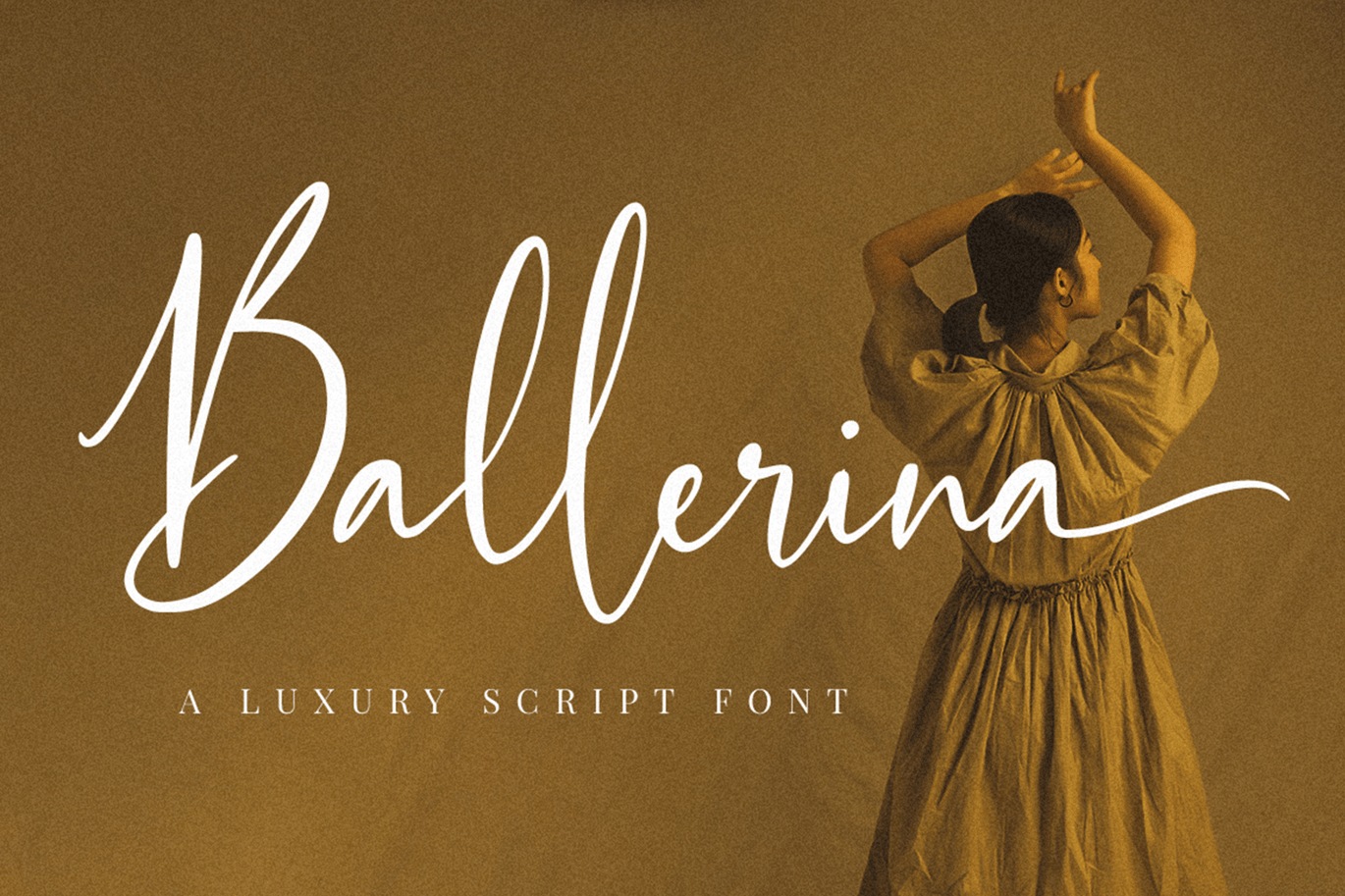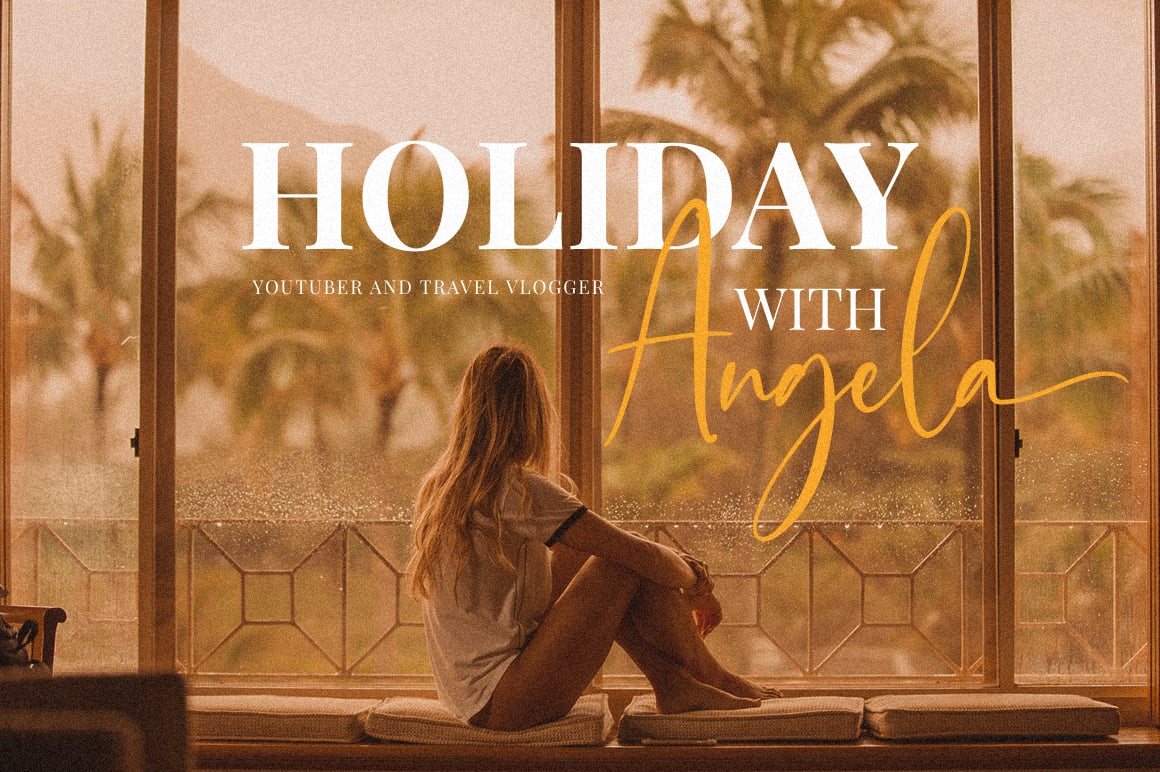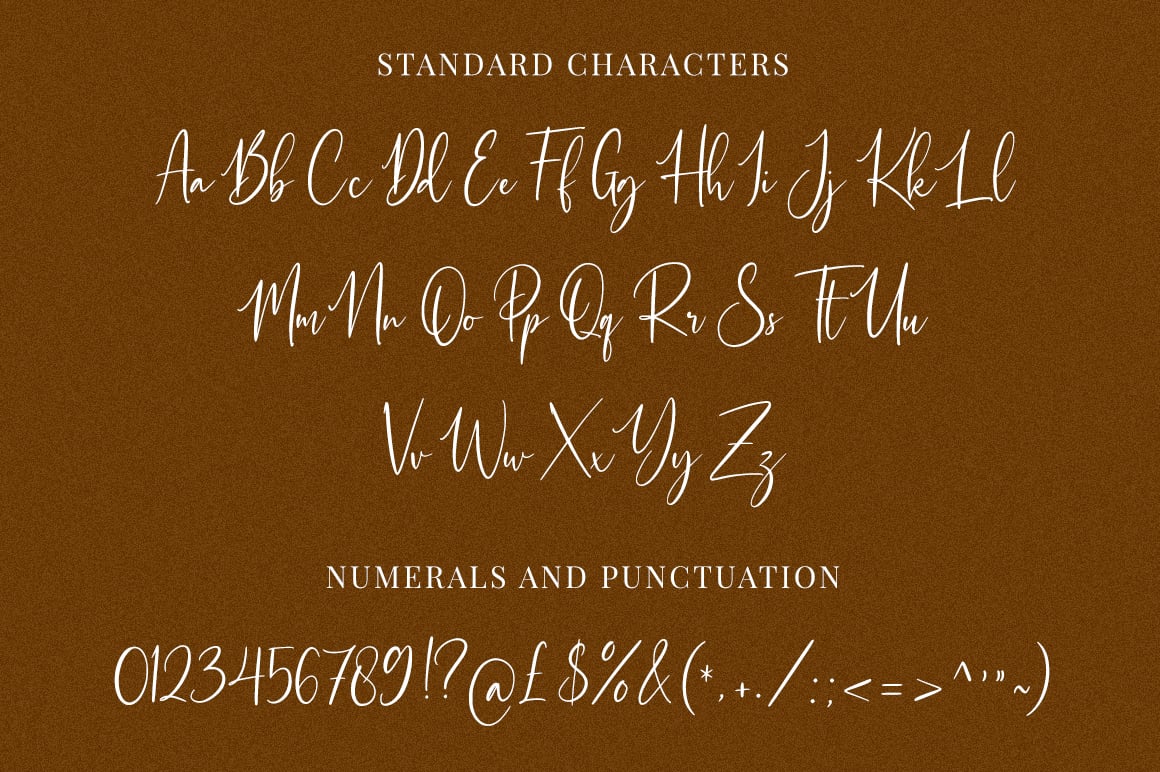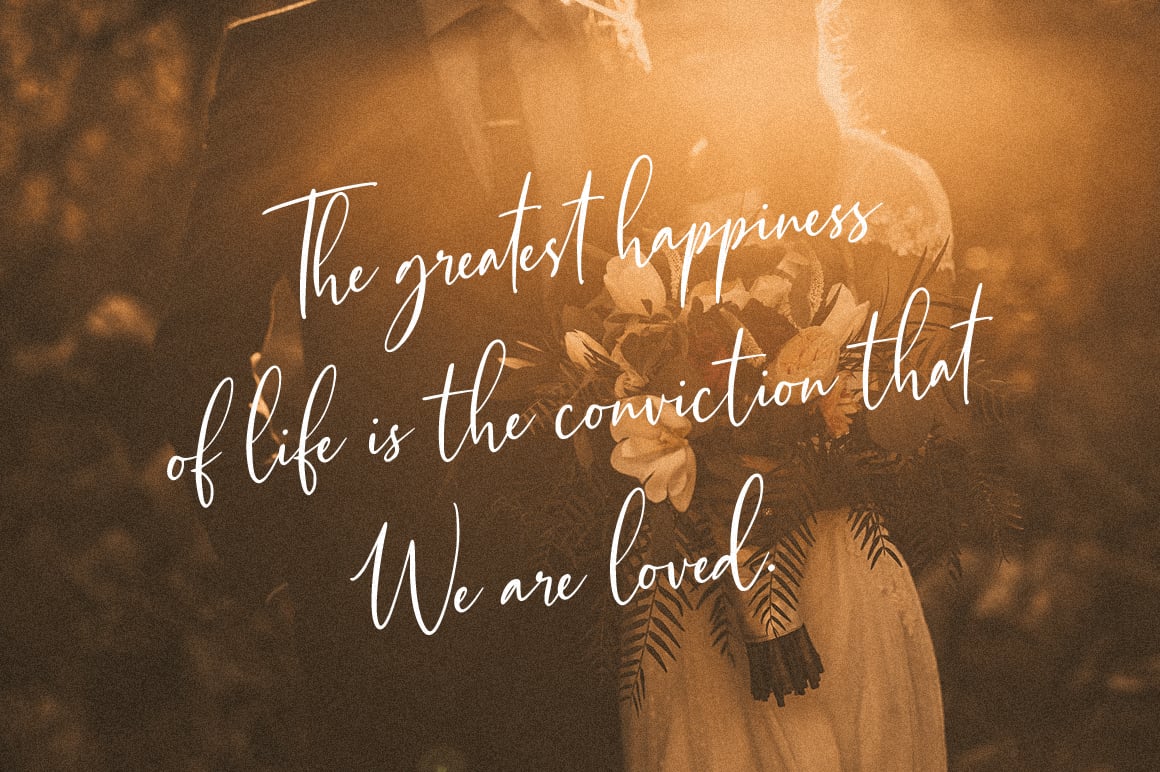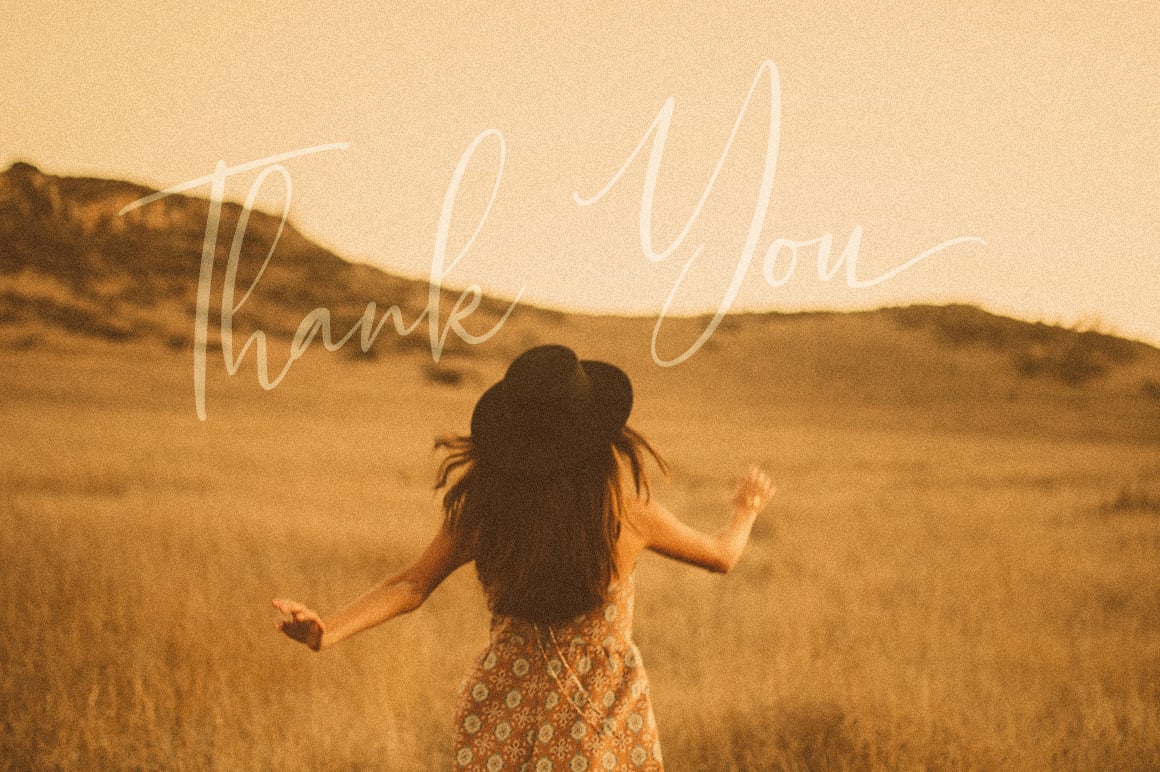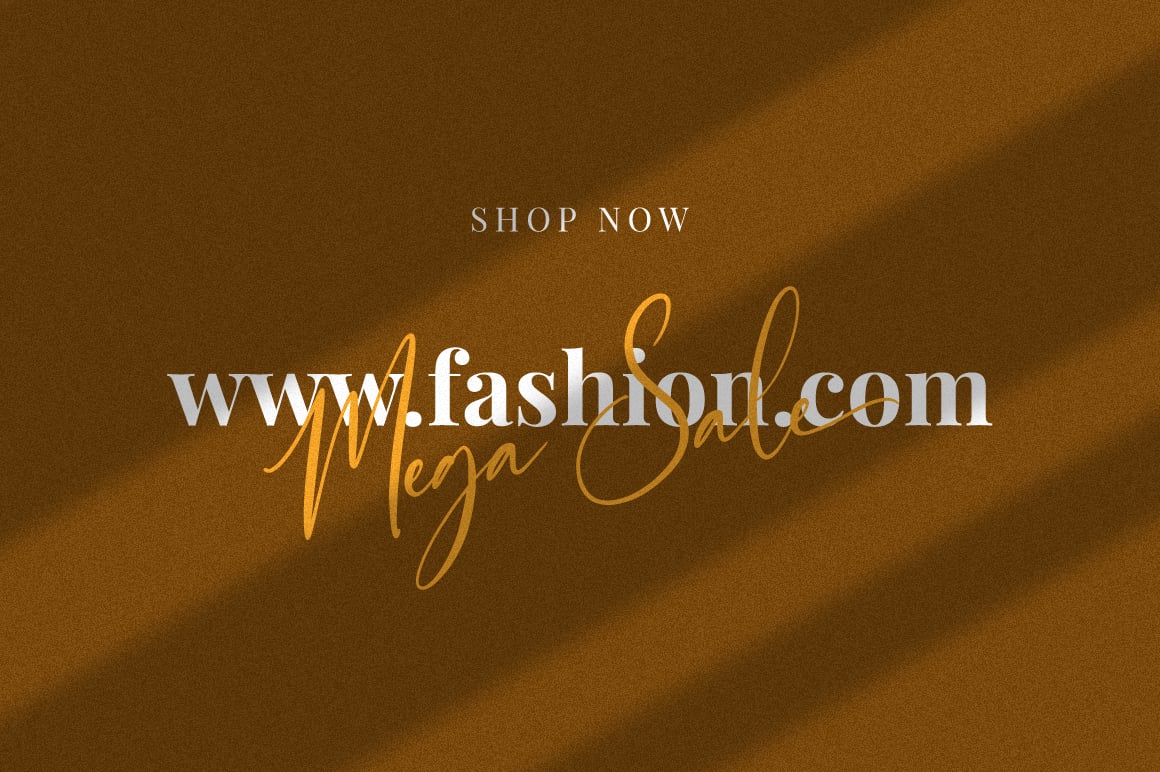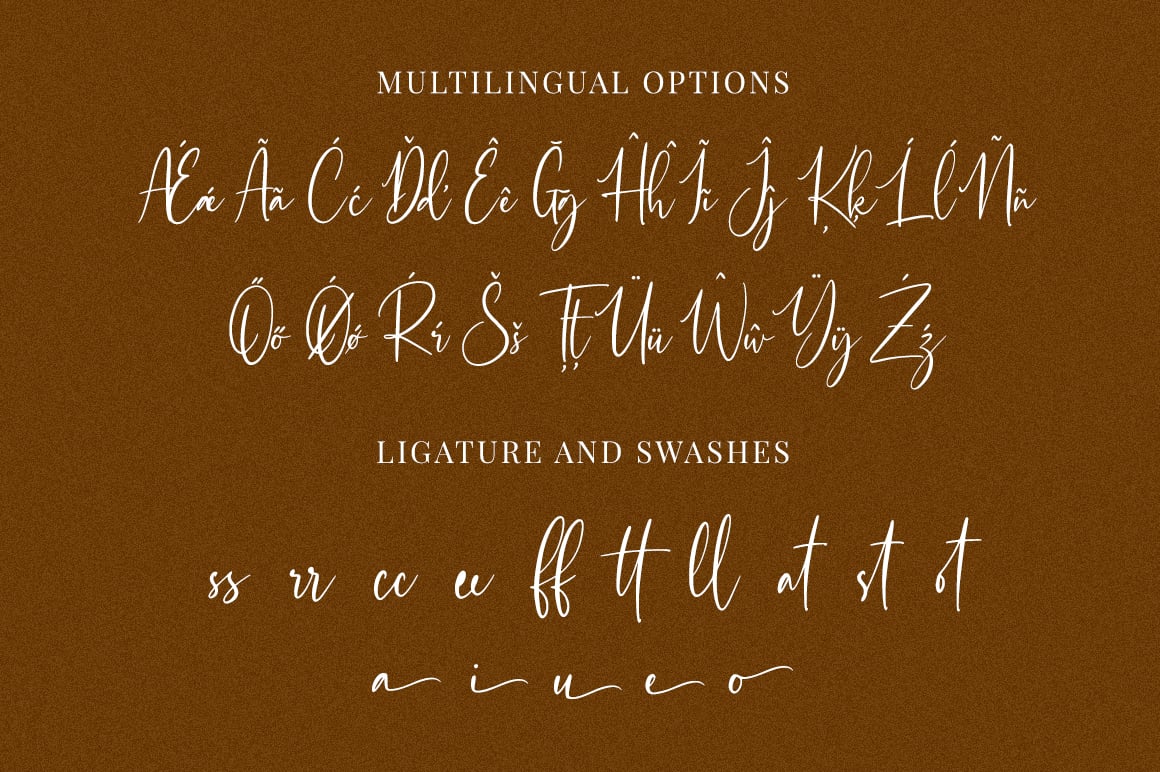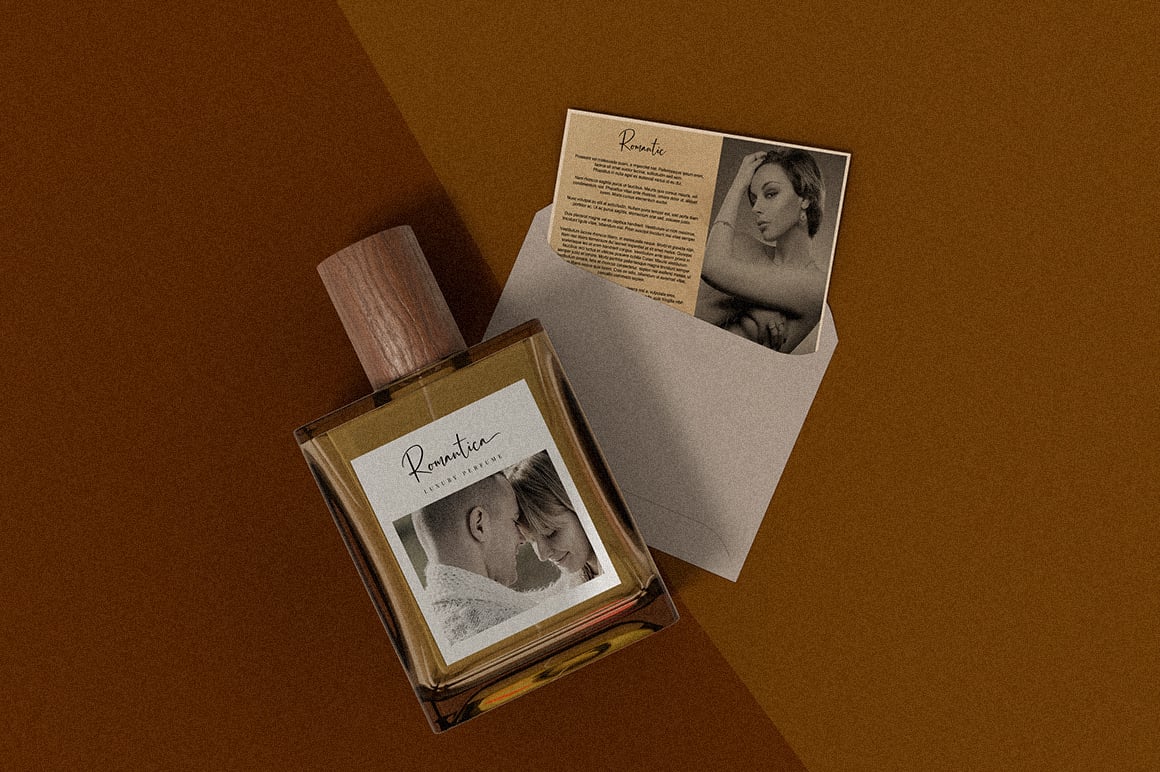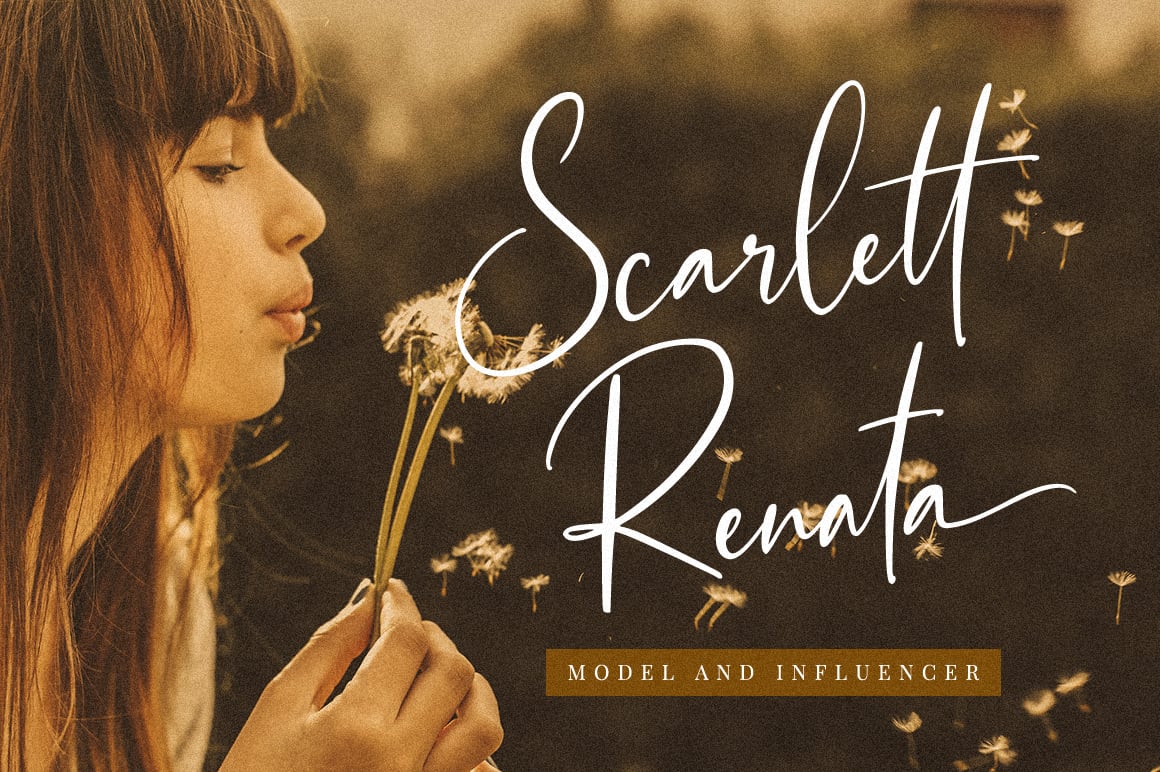
Ballerina – Signature Font
Ballerina is an elegant and flowing handwritten font. It is PUA encoded which means you can access all of the glyphs and swashes with ease! Fall in love with this font and bring your projects to the highest levels!
Each Font Has:
- Modern Signature Font
- Beautiful Swash (Ending tail)
- Beautiful Titling (Beginning tail)
- Special Ligatures